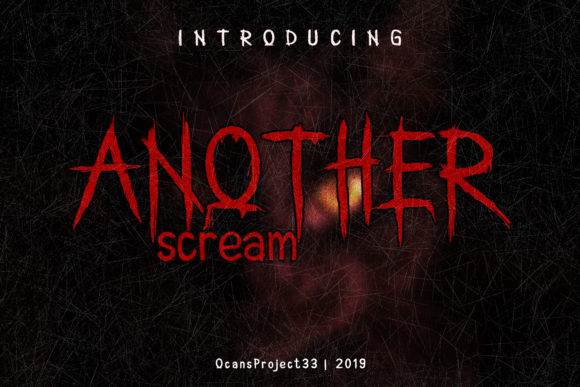
Dive into the captivating world of Another Scream, a display font that oozes uniqueness and character. This font family is the epitome of creativity, ready to elevate your designs to new heights.
Crafted with meticulous care by OCS Studio, Another Scream embodies the raw energy of scribbled pen strokes. Its bold and dynamic lines command attention, making it the perfect choice for movie titles, posters, and other designs that demand impact.
Imagine your designs adorned with the edgy and expressive Another Scream font. Your words will leap off the screen, grabbing the attention of your audience and leaving a lasting impression. Its versatility extends to logos, quotes, t-shirts, and more, making it a dynamic tool for any creative endeavor.